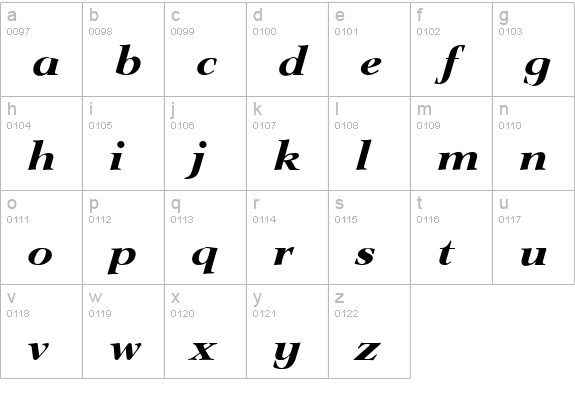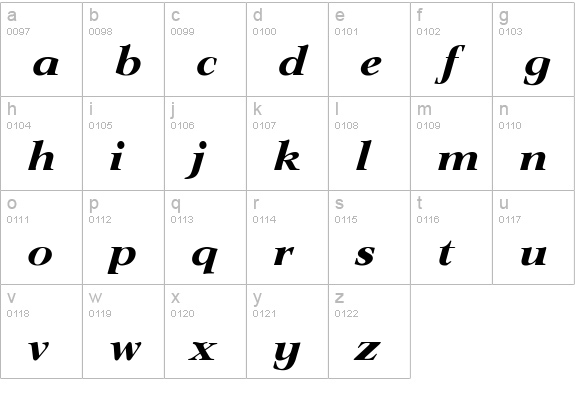
Terono Display SSi Italic Font Details
Terono Display SSi Italic is a distinctive, italic variant in the Terono typeface family \xE2\x80\x94 well suited to design and typography projects.
Terono Display SSi Italic font is a stunning typeface that exudes elegance and sophistication. Its sleek and slanted design adds a touch of modernity and creativity to any project or design. With its flowing curves and unique letterforms, Terono Display SSi Italic captures attention and leaves a lasting impression. This font is perfect for a wide range of applications, including logo designs, headlines, posters, and branding materials. Its versatility allows it to seamlessly blend into various design styles, from minimalistic and contemporary to bold and vibrant. One of the standout features of Terono Display SSi Italic font is its impeccable legibility, even in smaller sizes. Each letter is meticulously crafted, ensuring clarity and readability without compromising on style. This makes it an ideal choice for both print and digital media. The best part is that Terono Display SSi Italic font is available for free download at FontsMarket.com. This means that designers and creatives can enjoy the beauty and functionality of this font without any cost. Whether you are a professional graphic designer or a hobbyist, Terono Display SSi Italic font offers a high-quality and freely accessible solution for your typography needs. So, why wait? Enhance your designs with the charming and versatile Terono Display SSi Italic font today. Download it for free at FontsMarket.com and let your creativity soar.